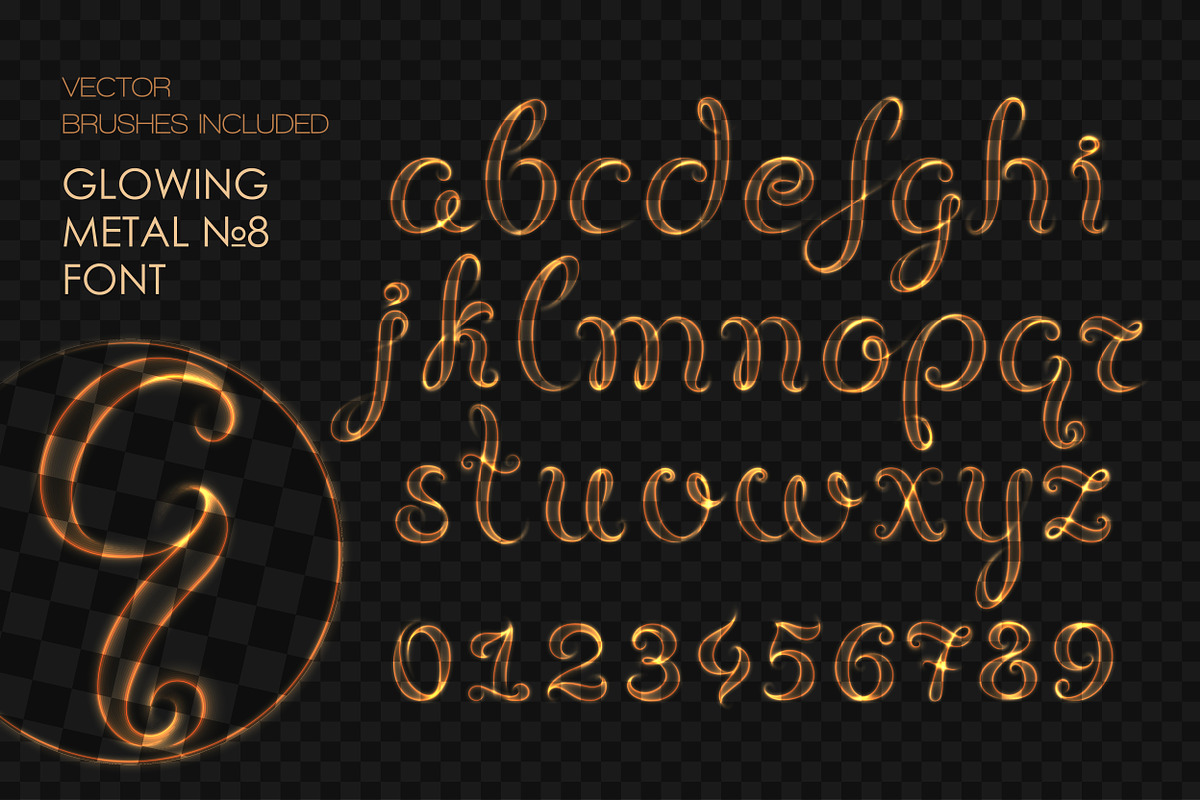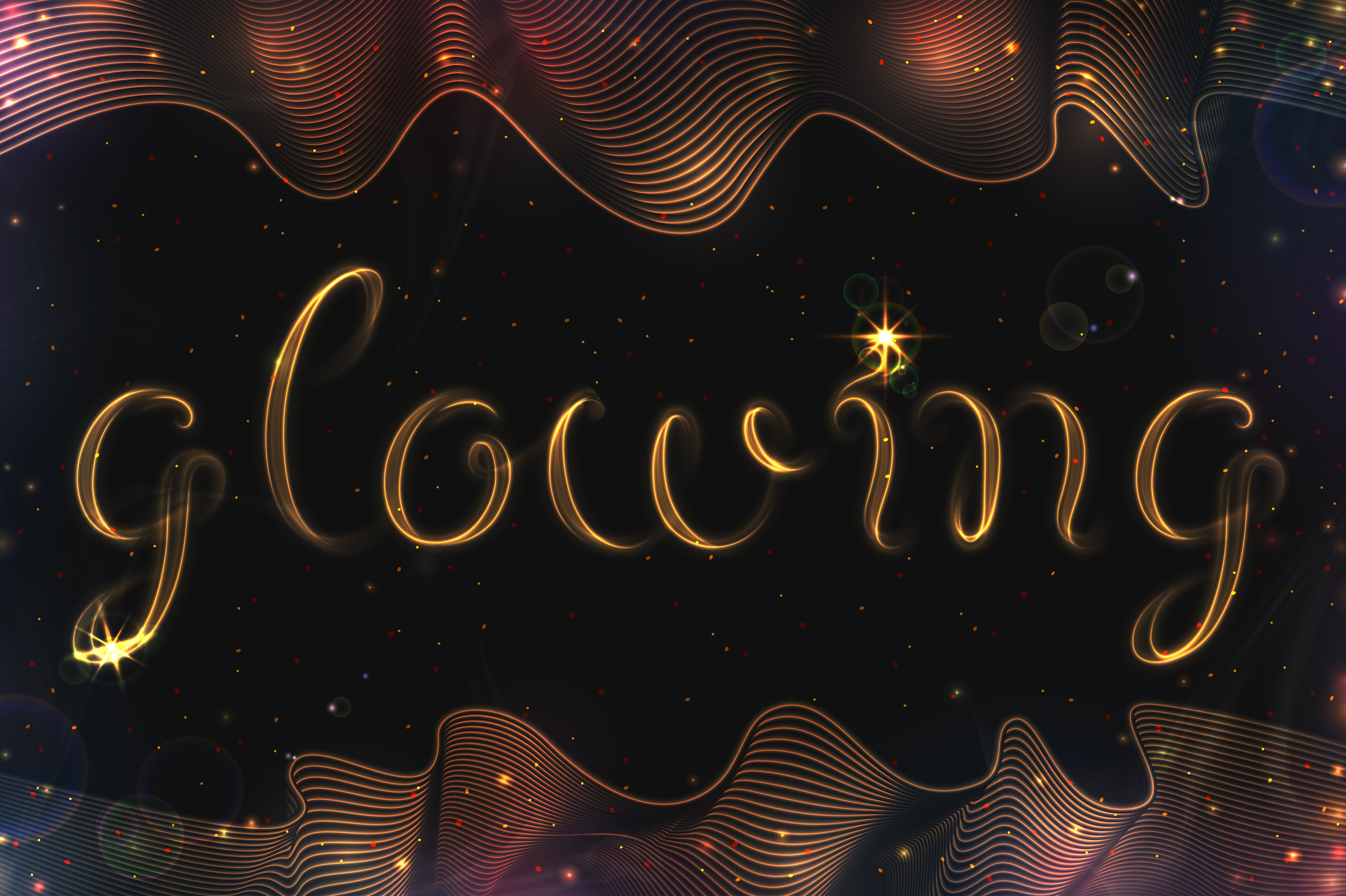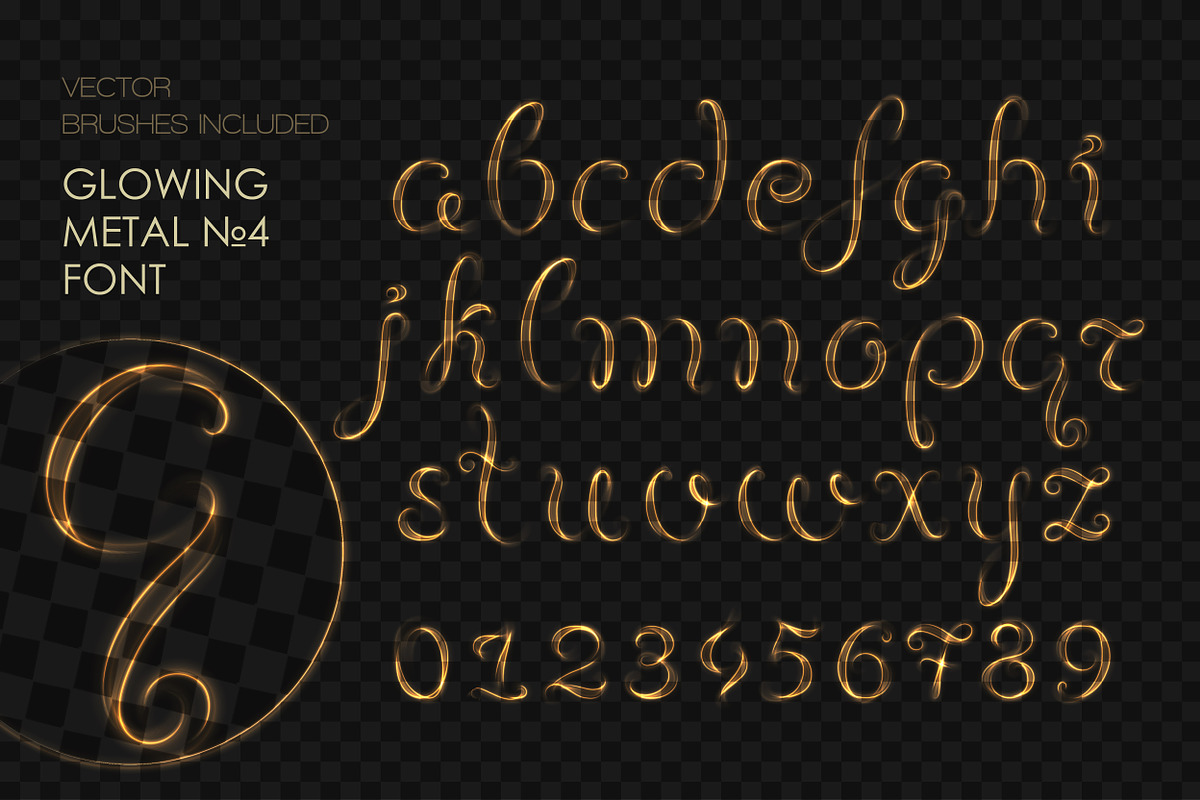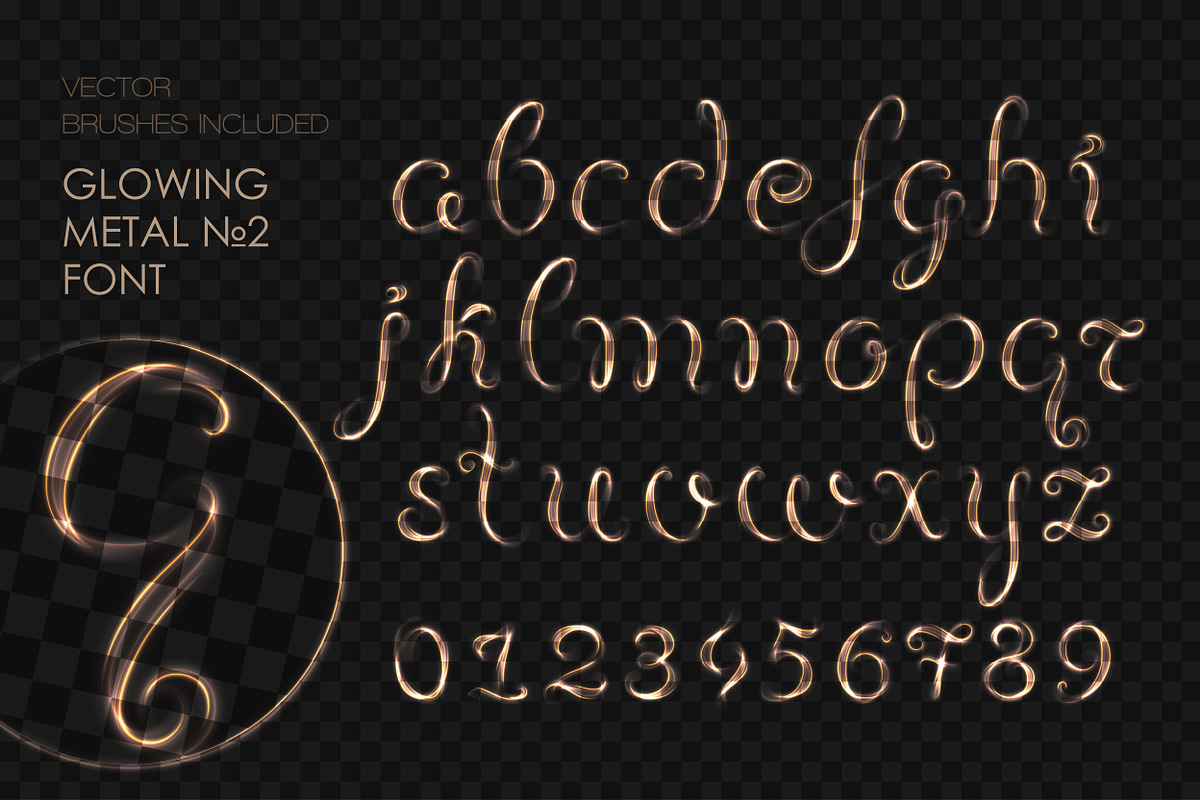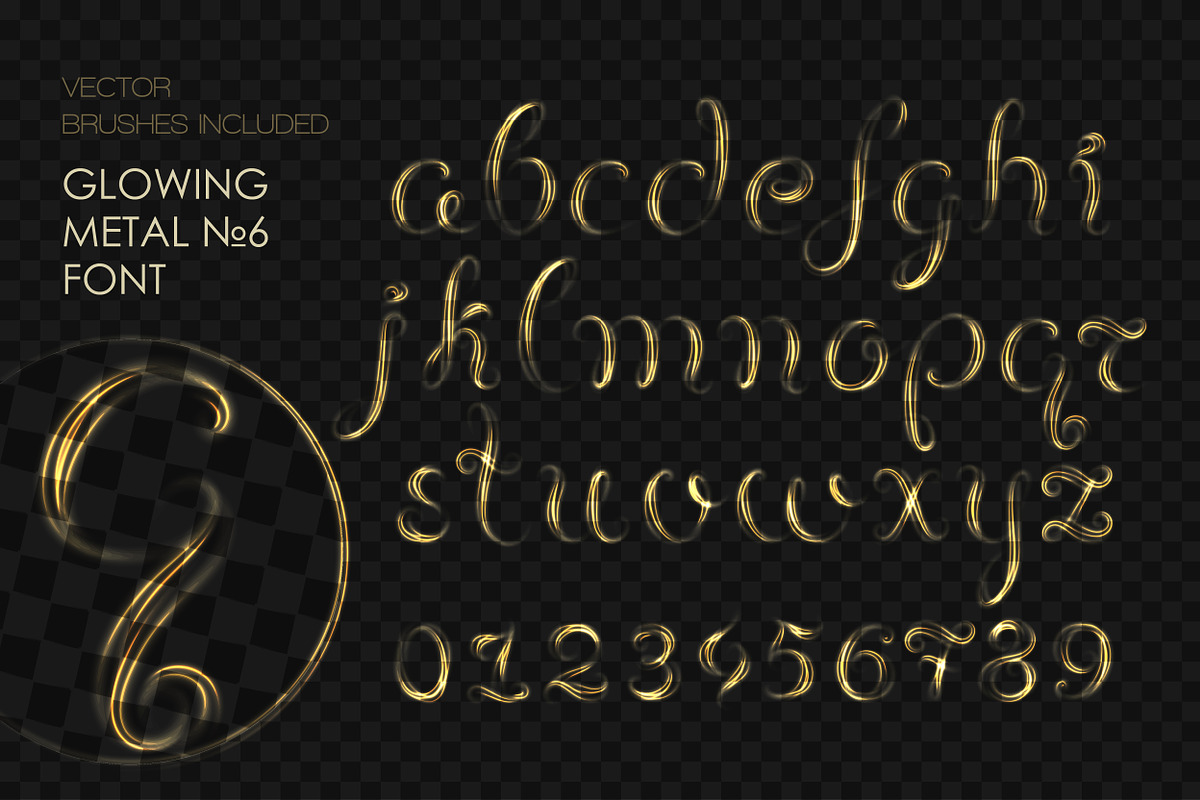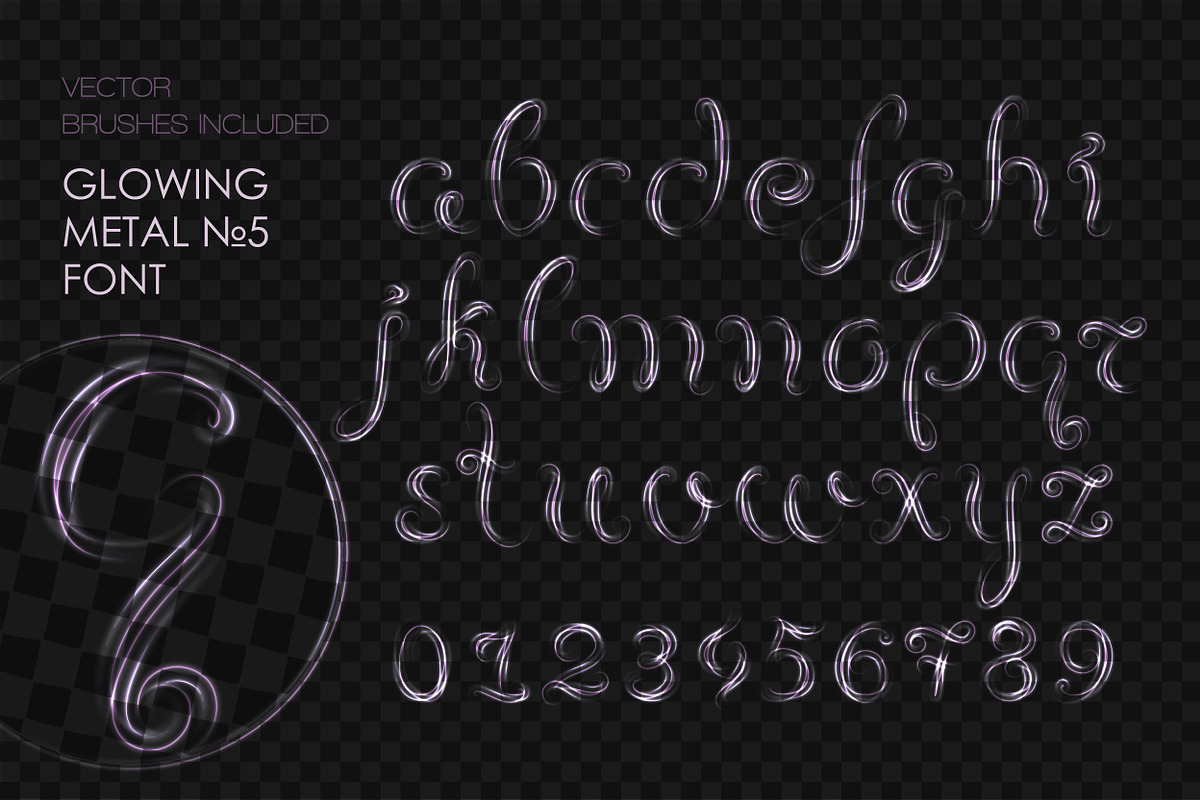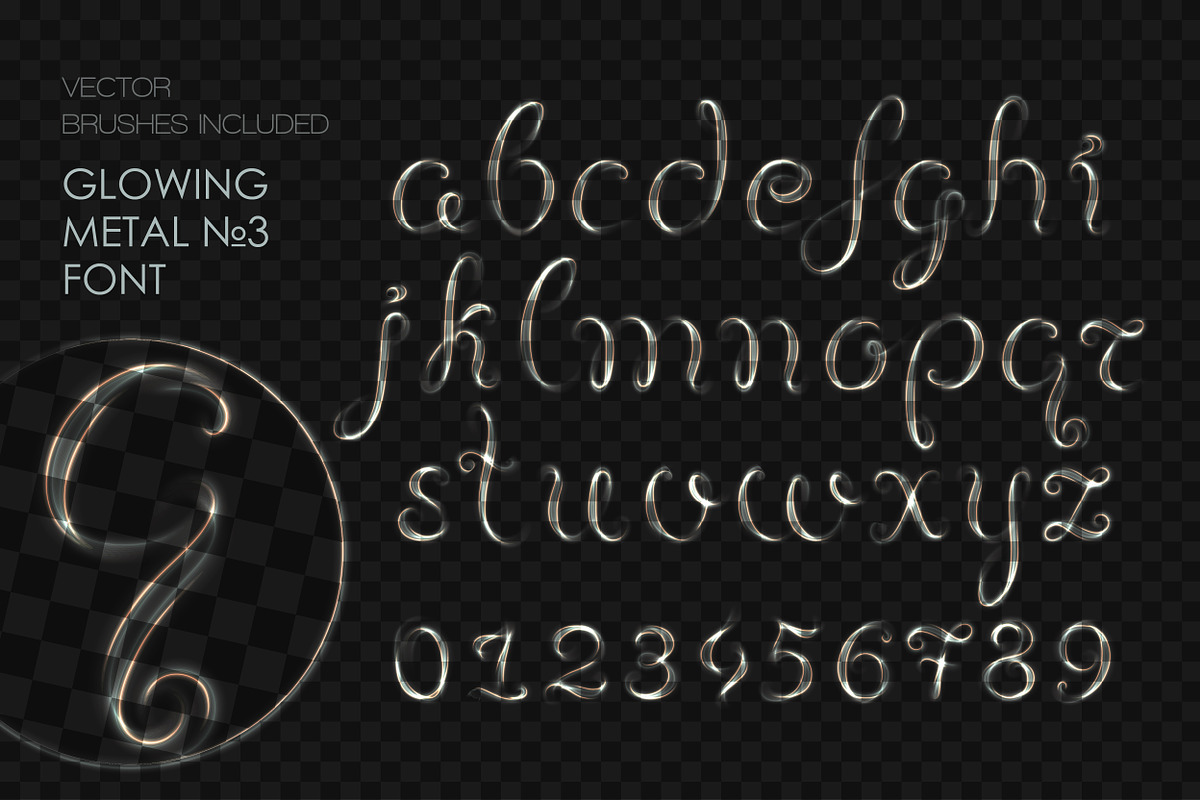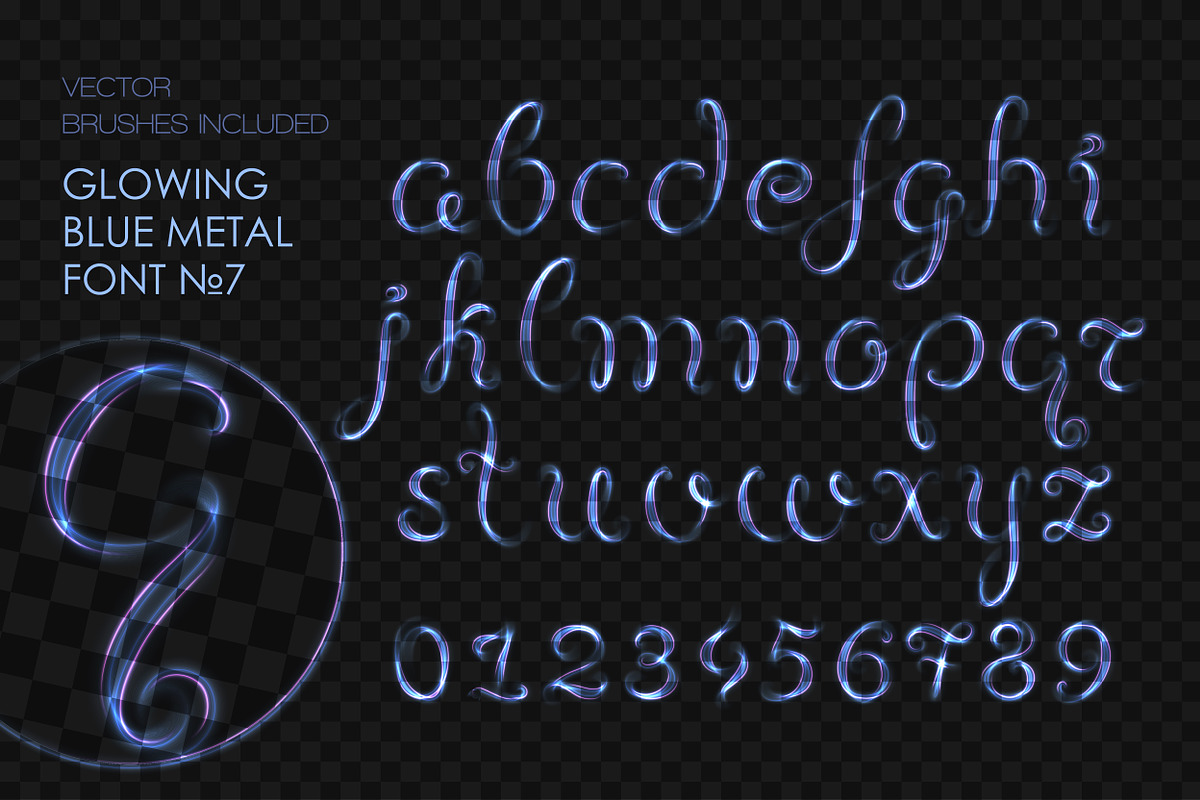
8 GLOWING METAL FONTS / 8 BRUSHES
- 8 GLOWING ALPHABETS
- 8 FONTS WITH METAL BRUSHES
You will get not only nice brushes, but also the elegant font!
- High quality of illustrations, each line were drawn carefuly with love =)
- Garmony and balance in each metal color
- You can use these fonts in different designs for celebration, party, disco, new year and so on